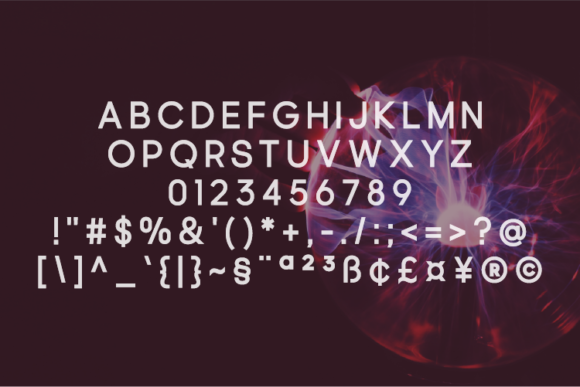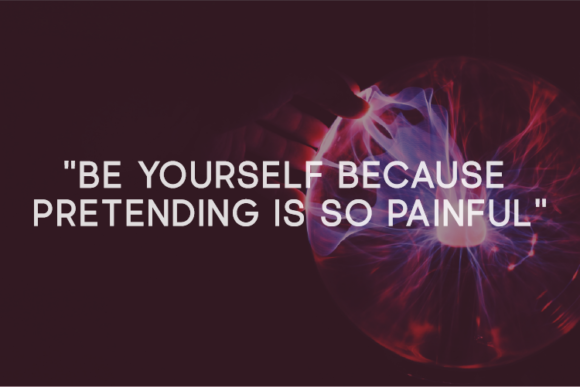
Introduction to Protech Font Font
Fonts play a crucial role in design, and the Protech Font font is a typeface that brings both character and versatility to any project. Whether you’re working on a branding project, a website, or a print design, the Protech Font font offers a unique style that can elevate your work.
Protech is an elegant sans serif font that will complement every project youβre working on.
Protech will very easily become a go-to font, no matter the occasion The only limit is your imagination.
Key Features of Protech Font Font
Why Choose Protech Font Font?
The Protech Font font is more than just a typeface β it’s a design tool that helps you communicate your message with style and clarity. Its unique character set and versatile design make it suitable for a wide range of applications, from elegant invitations to bold headlines.
With its carefully crafted letterforms and balanced proportions, the Protech Font font ensures readability and visual appeal across all mediums.
What makes Protech Font font special?
The Protech Font font stands out with its unique design, exceptional readability, and versatility across various design applications.